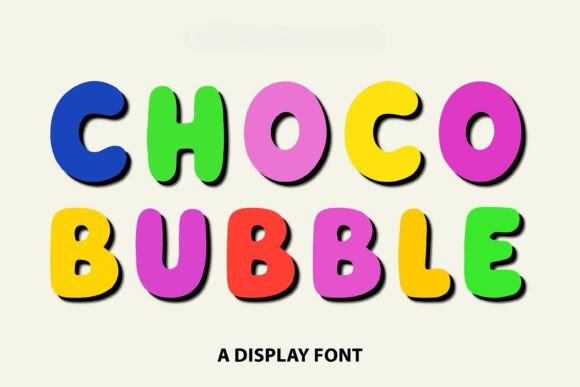
Introducing Choco Bubble Font: The Ultimate Design Game-Changer
In the world of design, fonts play a crucial role in conveying the tone and personality of a brand or creative project. With the vast array of fonts available, it can be overwhelming to find the perfect one that embodies the desired emotions and aesthetic. However, if you’re looking for a font that exudes joy, whimsy, and playfulness, look no further than the Choco Bubble Font. This vibrant and colorful font is designed to elevate your design endeavors and add a sprinkle of charm to your creative projects.
The Perfect Fit for Branding Initiatives
When it comes to branding, a font can make or break the identity of a company. The Choco Bubble Font is an absolute fit for branding initiatives, as it instantly conveys a sense of fun and approachability. Its unique and playful design makes it perfect for companies that want to stand out from the crowd and establish a strong brand presence. Whether you’re creating a logo, advertisement, or social media graphics, this font is sure to grab attention and leave a lasting impression.
Elevate Your Packaging Designs with Choco Bubble Font
Packaging design is a critical aspect of product marketing, as it can make or break a sale. The Choco Bubble Font can help take your packaging designs to the next level by adding a pop of color and whimsy. Whether you’re designing labels, wrappers, or boxes, this font is sure to make your product stand out on store shelves. Its playful design will also help to create an emotional connection with your target audience, making them more likely to engage with your brand.
Create Riveting Logotypes with Choco Bubble Font
A logotype is a crucial element of a brand’s identity, as it represents the company’s values and mission. The Choco Bubble Font is perfect for creating riveting logotypes that capture the essence of your brand. Its unique design and vibrant colors will help your logotype stand out and make a lasting impression on your target audience. Whether you’re creating a logo for a new startup or rebranding an existing company, this font is sure to deliver.
Make Your Headlines Pop with Choco Bubble Font
Headlines are a critical element of any design project, as they help to grab attention and convey the main message. The Choco Bubble Font is perfect for creating gripping headlines that demand attention. Its playful design and vibrant colors will help your headlines stand out and make a lasting impression on your target audience. Whether you’re creating a poster, advertisement, or social media graphic, this font is sure to deliver.
Add a Sprinkle of Charm to Your Wedding Invitations
Wedding invitations are a special way to share the joy and excitement of a wedding with loved ones. The Choco Bubble Font is perfect for adding a sprinkle of charm to your wedding invitations and making them truly unforgettable. Its playful design and vibrant colors will help to create a sense of whimsy and romance, making your wedding invitations truly special.
The Transformative Power of Choco Bubble Font
The Choco Bubble Font has the transformative power to elevate your design endeavors and take them to the next level. Its unique design and vibrant colors will help to create a sense of joy and whimsy, making your designs truly unforgettable. Whether you’re a designer, marketer, or entrepreneur, this font is sure to become a staple in your design toolkit.
Experience the Joy of Choco Bubble Font
The Choco Bubble Font is more than just a font – it’s an experience. Its playful design and vibrant colors will help to bring joy and whimsy to your design projects, making them truly special. Whether you’re working on a branding initiative, packaging design, or wedding invitation, this font is sure to deliver.
In conclusion, the Choco Bubble Font is a game-changer for designers, marketers, and entrepreneurs. Its unique design and vibrant colors make it perfect for branding initiatives, packaging designs, riveting logotypes, gripping headlines, and wedding invitations. With its transformative power to elevate your design endeavors, this font is sure to become a staple in your design toolkit. So why wait? Experience the joy of Choco Bubble Font today and take your design projects to the next level.